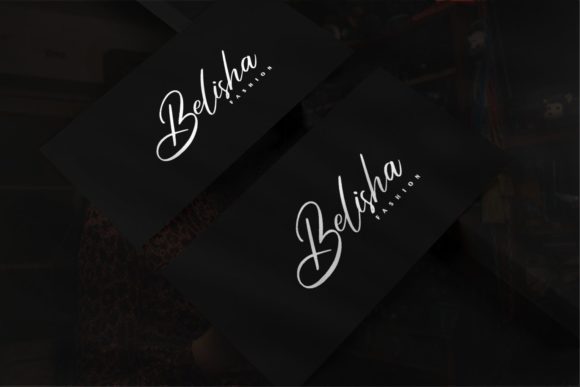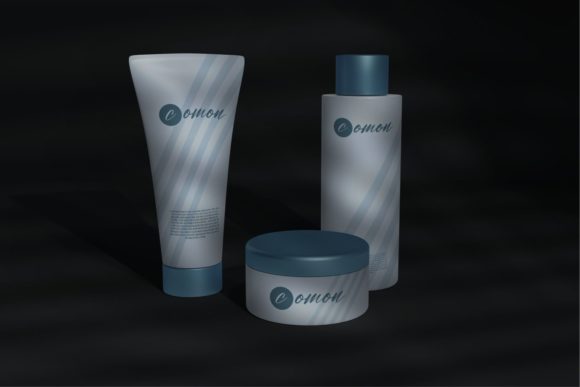
Billie Elishe Font
db-ku.com - Script & Handwritten -- Billie Elishe is a dazzling script font. Whatever the topic, this font will be a wonderful asset to your font library, as it has the potential to enhance any creation.